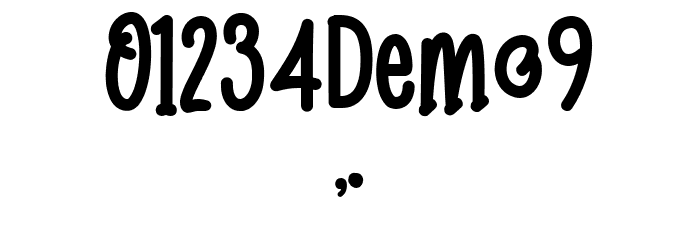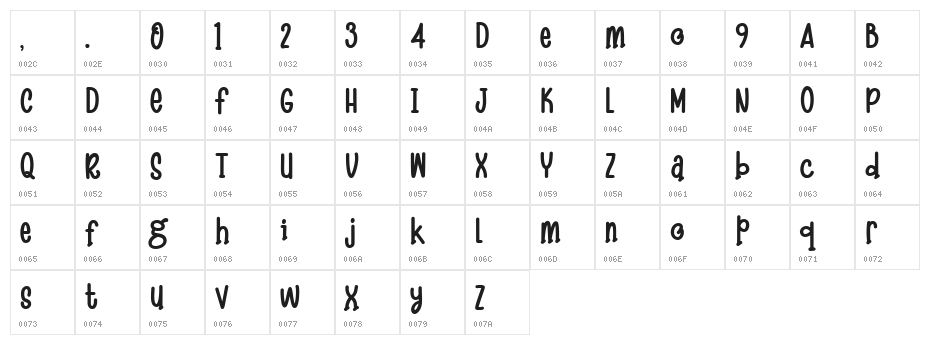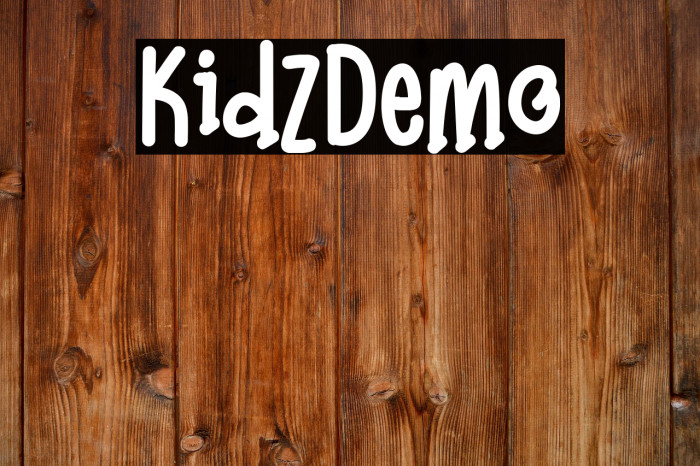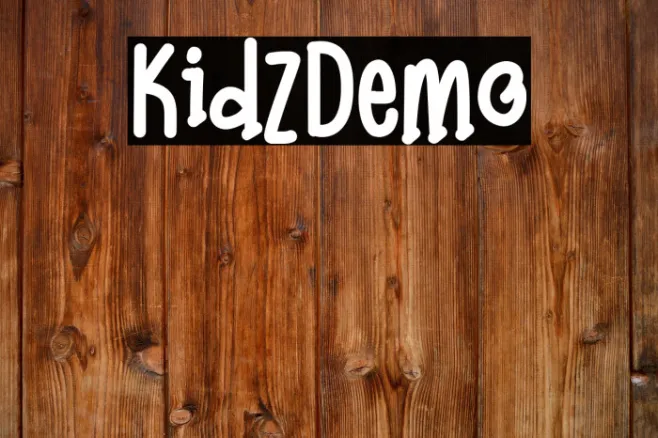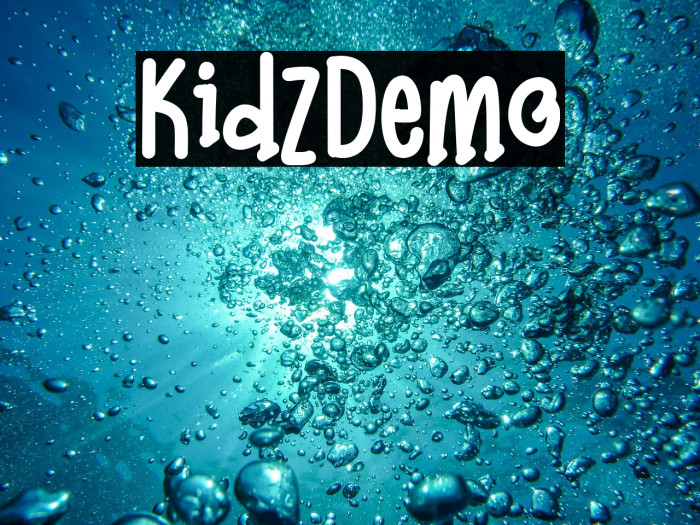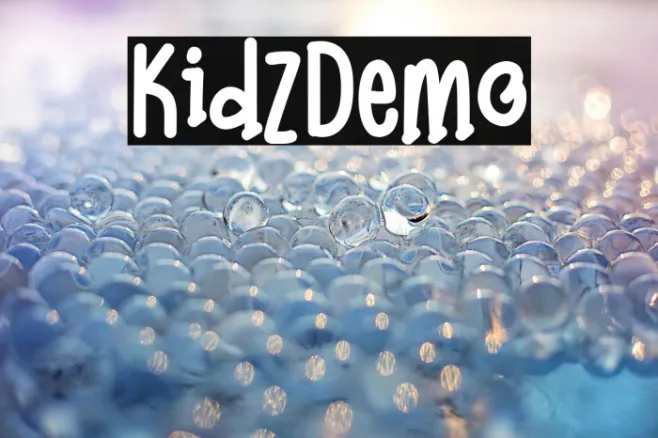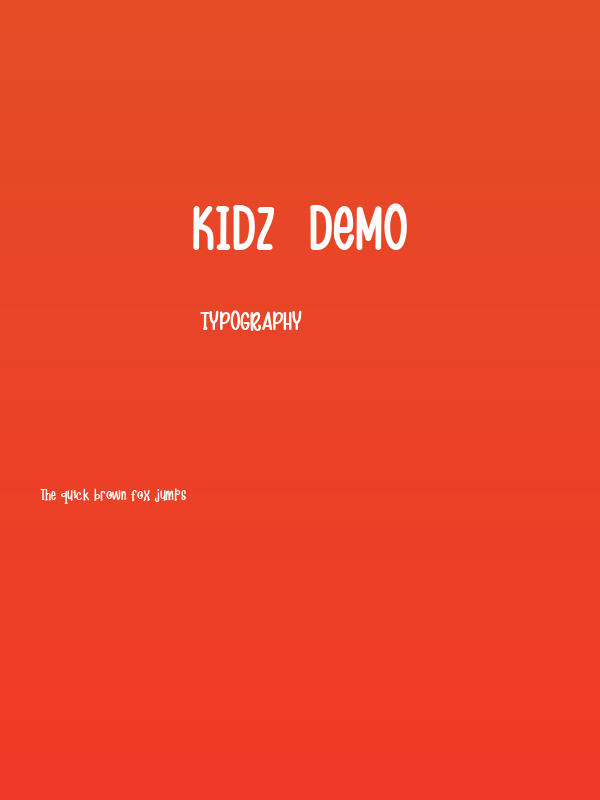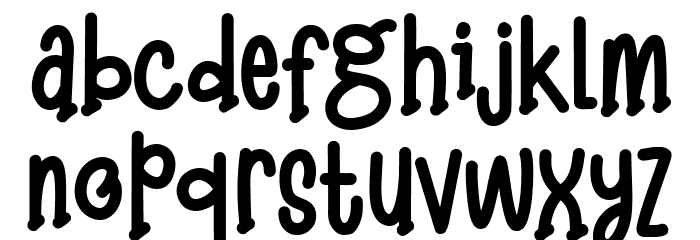
Kidz_Demo Font
Kidz_Demo Description
This playful and whimsical font features bold, rounded characters with a hand-drawn aesthetic. The uppercase and lowercase letters maintain a consistent style, with slightly exaggerated curves and a friendly appearance. The numbers and special characters follow the same design principles, making them cohesive with the alphabet. The font's overall look is casual and approachable, ideal for projects that require a fun and informal touch. Its unique style can capture attention and convey a sense of creativity and imagination.